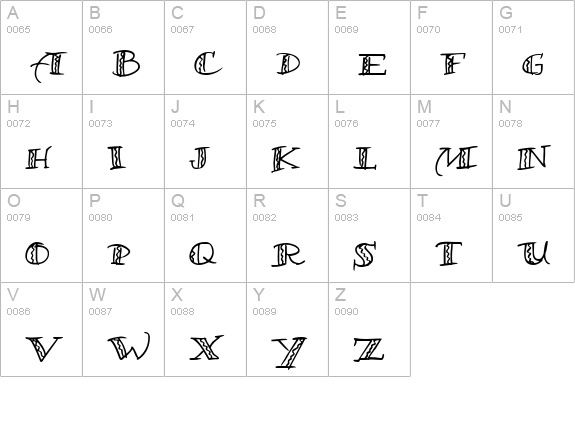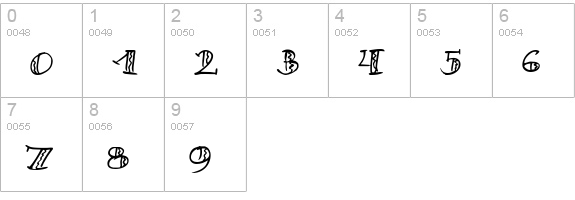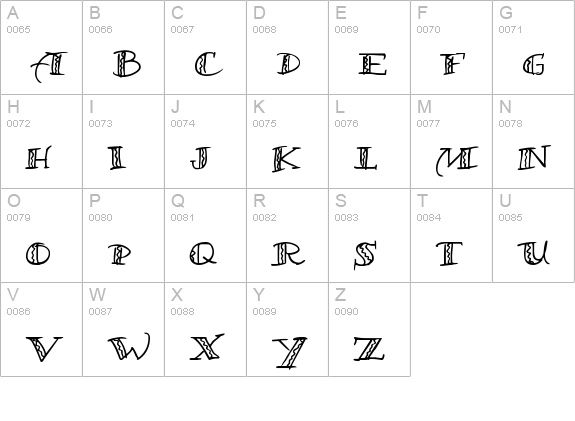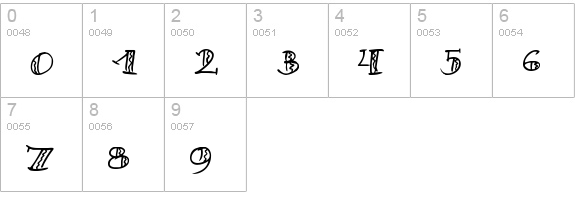
Samba! Font Details
Introducing Samba! font, a dynamic and vibrant typeface that effortlessly captures the spirit of celebration and liveliness. With its playful curves and energetic letterforms, Samba! exudes a sense of rhythm and movement, making it perfect for any design project that aims to evoke a joyful and festive atmosphere. This font is not only visually stunning, but it is also free, allowing designers and creatives to incorporate its lively charm into their work without any constraints. Samba! font is freely available to download at FontsMarket.com, a trusted online platform for high-quality fonts. Whether you're designing party invitations, event posters, or even creating a bold and eye-catching logo, Samba! font is the ideal choice to infuse your project with an infectious energy that will captivate and engage your audience. Its versatile nature ensures that it can be used for both display purposes and smaller text sizes, enabling you to create a cohesive and captivating visual experience. The carefully crafted letterforms of Samba! font showcase its attention to detail, ensuring legibility without compromising on its playful and exuberant personality. Its unique combination of curves and strokes adds a touch of elegance and sophistication, making it a standout choice for any design that demands both style and readability. Whether you're a professional graphic designer or a passionate hobbyist, Samba! font offers a world of creative possibilities. Let its vivacious and spirited nature elevate your designs to new heights, bringing a sense of joy and excitement to every project you undertake. Download Samba! font for free at FontsMarket.com and let your creativity dance to the beat of this captivating typeface. Embark on a typographic journey that celebrates freedom of expression, bringing your designs to life with the infectious energy of Samba! font.